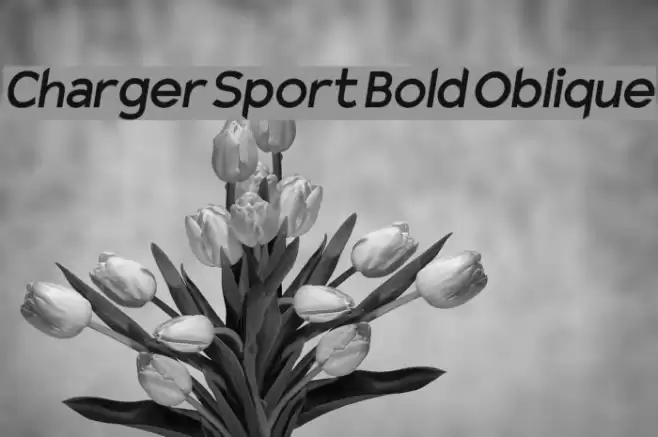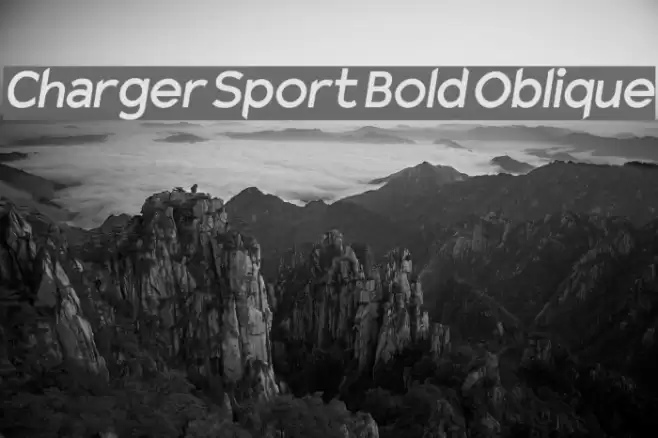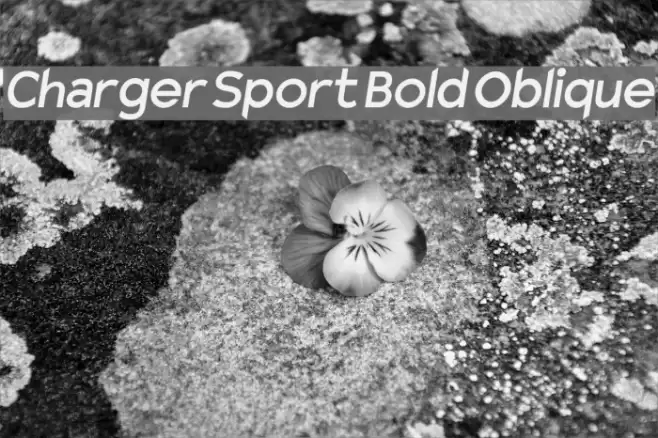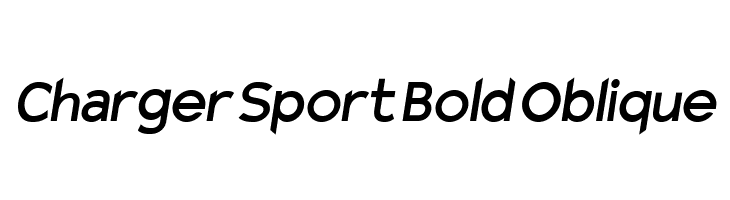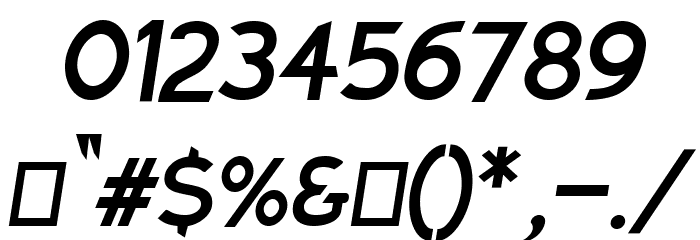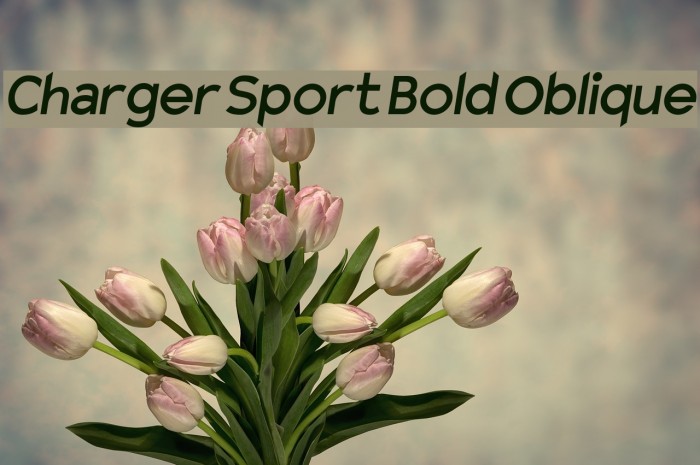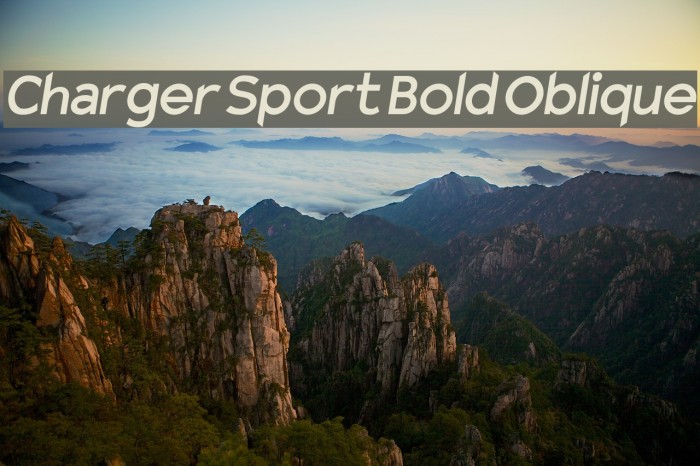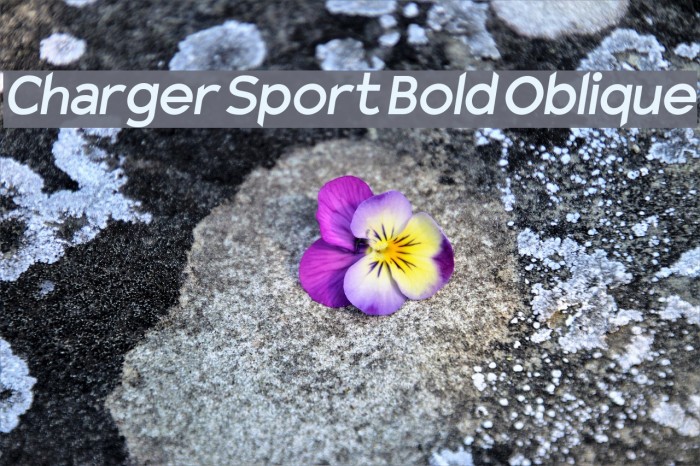
Charger Sport Bold Oblique Font
Charger Sport Bold Oblique Description
This font exhibits a dynamic and sporty appearance, characterized by its bold and oblique style. The letters are slightly slanted, giving a sense of motion and speed. The strokes are thick and consistent, providing a strong visual impact. The design is clean and modern, with a sans-serif structure that enhances readability. The numerals and special characters maintain the same bold and slanted style, ensuring uniformity across all glyphs. This font is ideal for projects that require a contemporary and energetic feel.
A bold, oblique sans-serif font with a sporty and dynamic style from Uncategorized fonts.
- Proposed Projects: Ideal for sports branding, dynamic posters, modern advertising, and energetic logo designs.